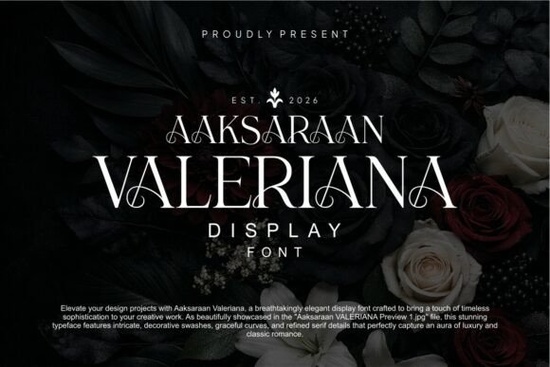
When it comes to adding a touch of elegance and sophistication to your design projects, the Aaksaraan Valeriana Font is a fantastic choice. This display font is designed to bring a timeless, high-end feel to any creative work, making it perfect for a variety of applications such as wedding invitations, luxury packaging, and more.
Why Choose Aaksaraan Valeriana for Your Design Projects?
Aaksaraan Valeriana is not just another pretty font; it's a meticulously crafted typeface that blends classic architectural letterforms with modern, artistic flourishes. This combination makes it incredibly versatile, allowing you to create designs that stand out and leave a lasting impression.
Perfect for High-End Branding
Whether you're working on a brand identity for a luxury boutique or a high-end cosmetic line, Aaksaraan Valeriana provides the perfect typographic touch. Its elegant and stylish characters can help establish a premium aesthetic, making your brand look more sophisticated and memorable.
Ideal for Elegant Wedding Invitations
Wedding invitations set the tone for the entire event, and using the right font can make all the difference. Aaksaraan Valeriana's sweeping, graceful characters add a romantic and refined touch, making it an excellent choice for creating invitations that your clients will love.
Enhance Fashion Editorials and Magazine Layouts
For fashion editorials and magazine layouts, the font you choose can significantly impact the overall look and feel. Aaksaraan Valeriana's blend of classic and modern elements makes it a standout choice for headlines, titles, and other display texts. It adds a touch of elegance that can elevate the entire layout.
Creating Eye-Catching Social Media Graphics
In the world of social media, standing out is key. Aaksaraan Valeriana can help you create eye-catching graphics that grab attention. Whether you're designing posts for Instagram, Facebook, or any other platform, this font can make your content more engaging and visually appealing.
How Does Aaksaraan Valeriana Compare to Other Display Fonts?
While there are many display fonts available, Aaksaraan Valeriana stands out for its unique blend of classic and modern styles. Here’s how it compares to some other popular display fonts:
- Gilligan Karl: This font has a more casual, handwritten feel, making it great for relaxed, informal designs. In contrast, Aaksaraan Valeriana offers a more formal and elegant look.
- Stacked Remember: Known for its layered, 3D effect, Stacked Remember is perfect for bold, impactful designs. Aaksaraan Valeriana, on the other hand, focuses on elegance and refinement.
- Cowboy Howdy: With its rustic, Western style, Cowboy Howdy is ideal for themed designs. Aaksaraan Valeriana, with its more universal appeal, is suitable for a wider range of projects.
- Magic Retro: This font brings a vintage, retro vibe, which can be perfect for nostalgic designs. Aaksaraan Valeriana, with its timeless elegance, offers a more contemporary and versatile option.
Tips for Using Aaksaraan Valeriana in Your Designs
To get the most out of Aaksaraan Valeriana, here are some practical tips:
- Pair with Simpler Fonts: Use Aaksaraan Valeriana for headings and titles, and pair it with simpler, more readable fonts for body text. This creates a balanced and visually appealing design.
- Experiment with Colors: Try different color schemes to see what works best. Aaksaraan Valeriana looks stunning in both bold, rich colors and subtle, pastel tones.
- Use for Special Occasions: This font is particularly well-suited for special occasions like weddings, anniversaries, and other celebratory events. It adds a touch of class and elegance to any invitation or announcement.
Final Thoughts
Aaksaraan Valeriana is a versatile and elegant display font that can add a touch of sophistication to a wide range of design projects. Whether you're working on branding, wedding invitations, or social media graphics, this font can help you create designs that truly stand out. Give it a try and see how it can transform your next project.